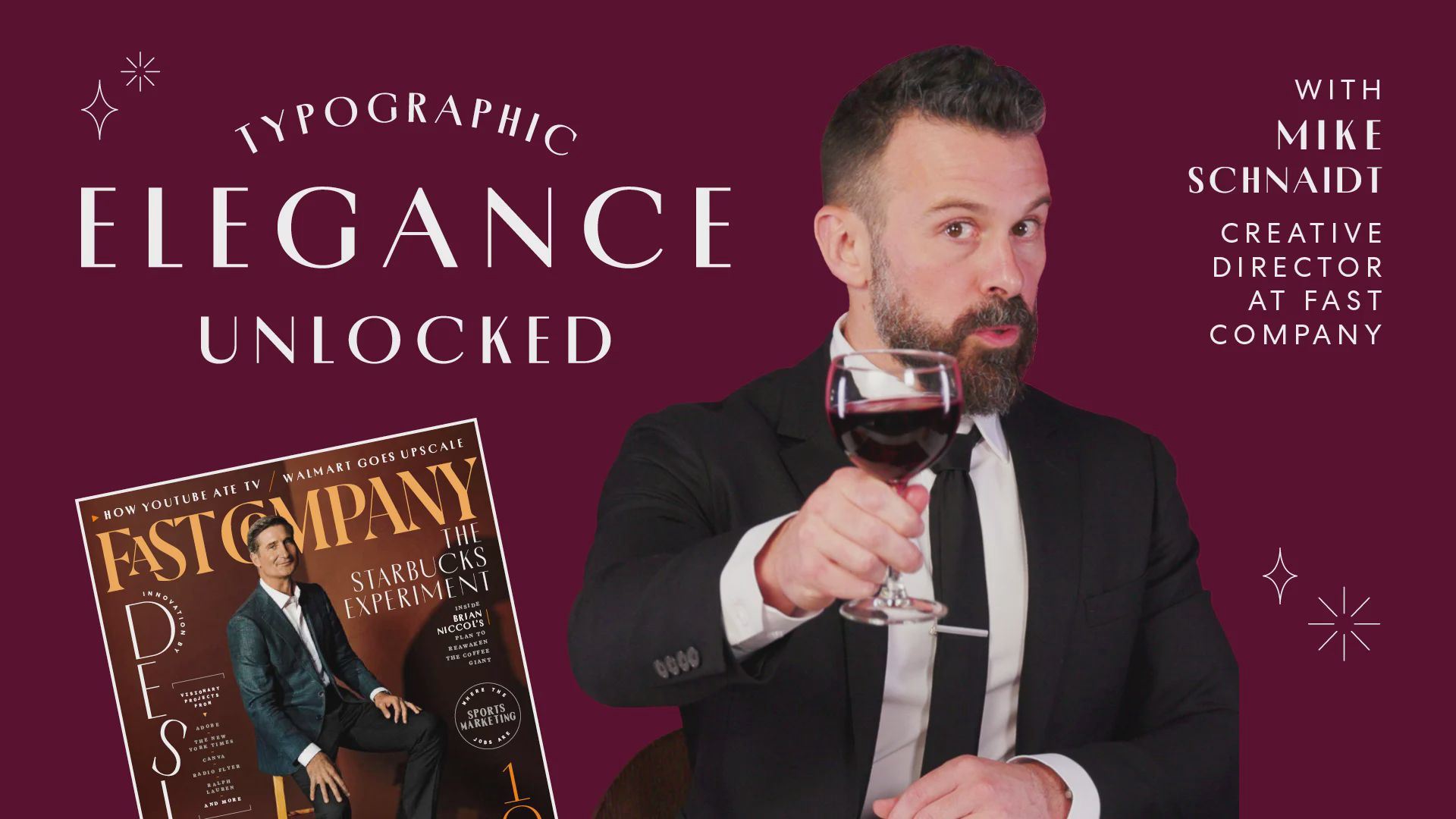
This typeface is too elegant to ignore
Porte Neue is the typeface of effortless sophistication, and that's why the ‘Fast Company’ design team chose it for the latest issue